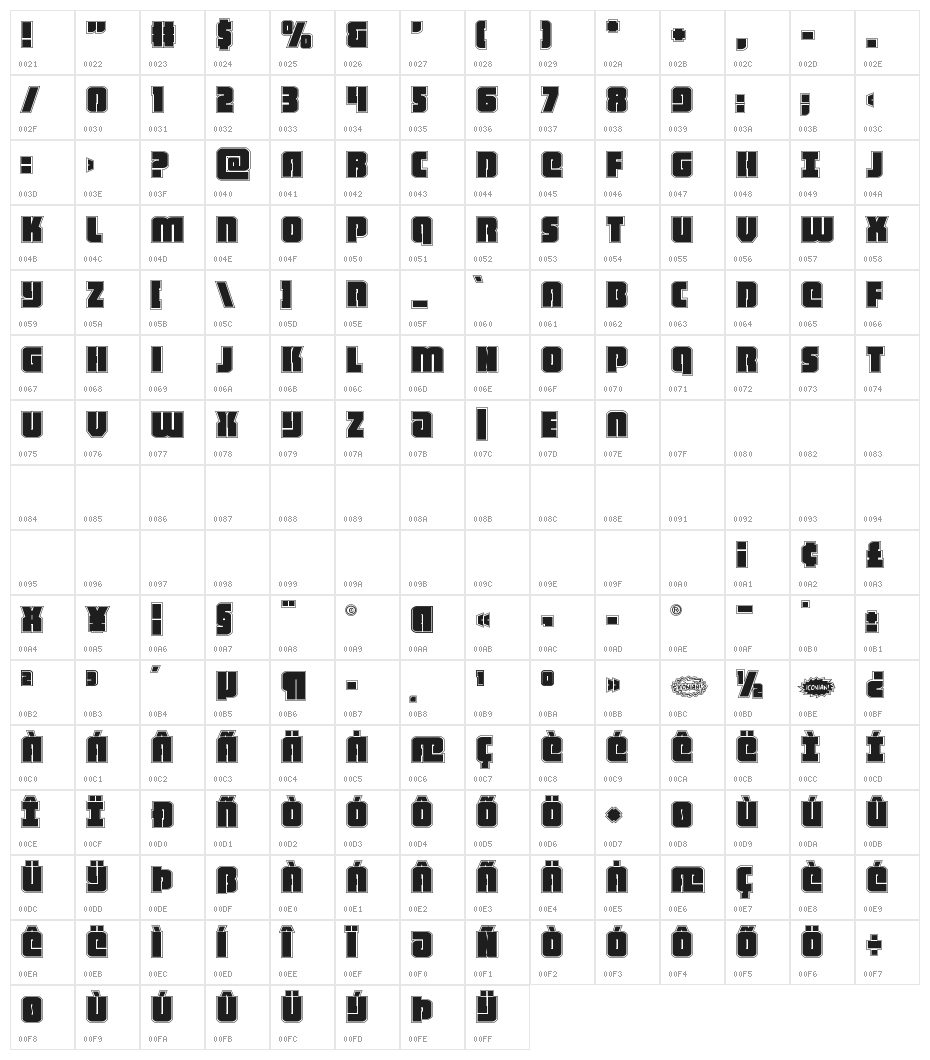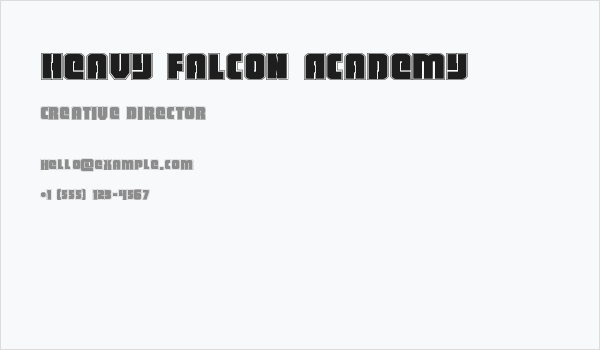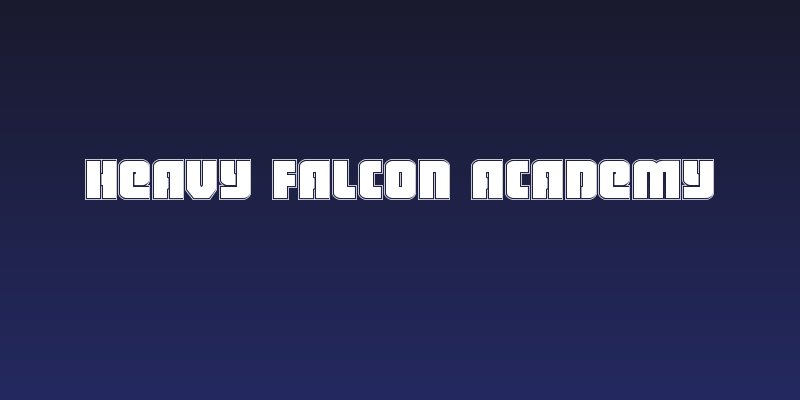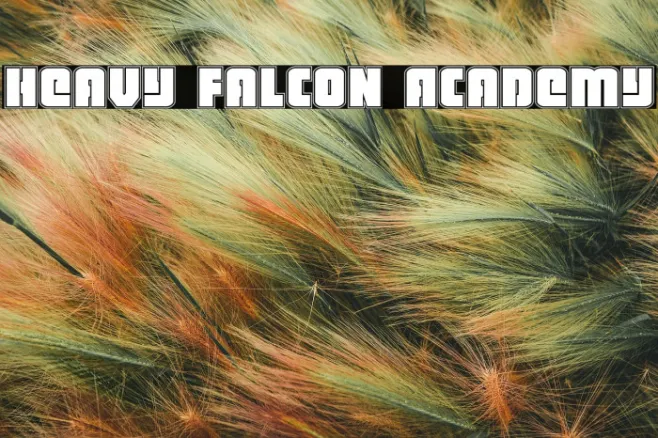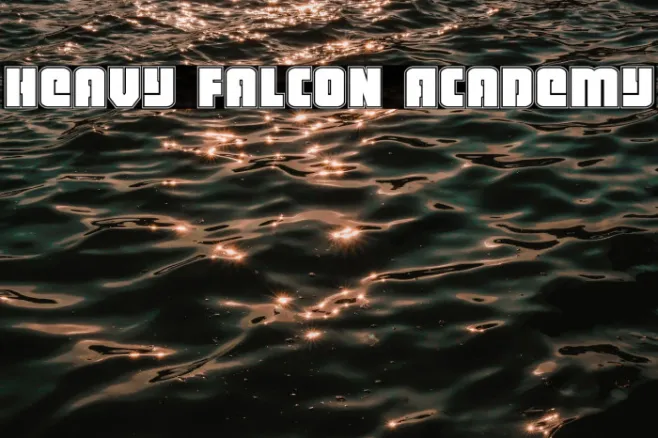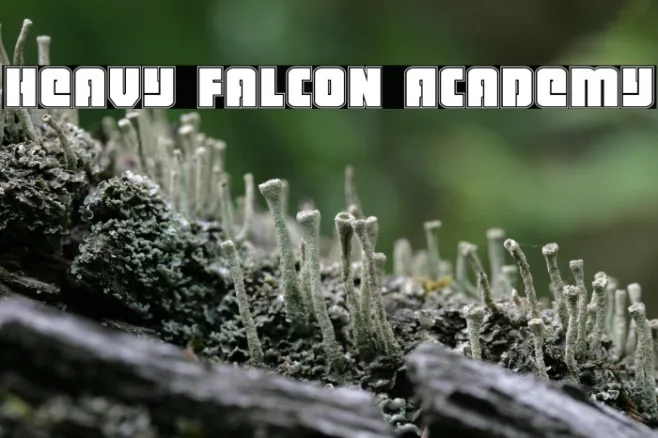
Heavy Falcon Academy Font
Heavy Falcon Academy Description
This font features a bold, blocky design with a strong presence. Each character is outlined with a thick border, giving it a three-dimensional effect. The uppercase letters are uniform in height and width, creating a cohesive and powerful look. The numbers and special characters maintain the same bold style, ensuring consistency across all glyphs. This font is ideal for making a statement, with its heavy weight and striking appearance. The overall design is modern and impactful, suitable for projects that require attention-grabbing typography.
| Proposed Projects | Ideal for posters, headlines, logos, and branding materials that require a bold statement. |